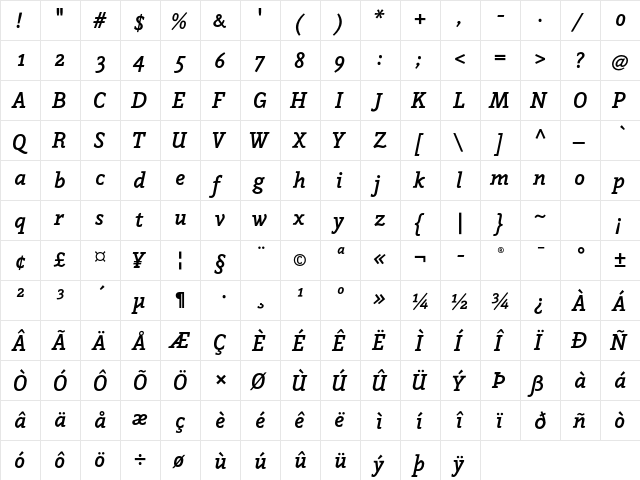
Napoleone Slab ITC Std BoldIta
| Designer | Silvio Napoleone |
Design Context for Napoleone Slab ITC Std Typeface
Napoleone Slab ITC Std features prominent, blocky serifs that give it a confident, grounded presence — equally at home in editorial settings and bold branding work. The heavy weight commands attention and anchors typographic hierarchies.
Works well in editorial design, news publishing, impactful branding, and poster typography.
Pro Tip: Try Napoleone Slab ITC Std set tight in headlines for a classic editorial feel. Its slab serifs create strong horizontal rhythm that anchors a page layout.